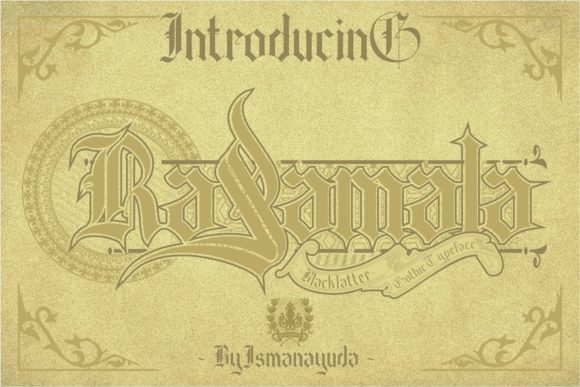
Welcome to the world of Rasamala, a captivating blackletter typeface that exudes power and intrigue. Each letterform is a visual masterpiece, boasting sharp edges, sweeping curves, and a bold, commanding presence. Rasamala is not just a font; it's an artistic expression that will make your designs stand out from the crowd.
Imagine your words leaping off the screen, demanding attention with their unique and striking appearance. Rasamala's assertive personality will transform your projects, whether they be logos, posters, album covers, or even TV displays. Its gothic undertones add a touch of mystery and elegance, making it perfect for capturing the viewer's imagination.
With Rasamala, you have the power to convey a message that resonates with your audience. Its distinct touch will leave a lasting impression, whether you're crafting a bold statement or evoking a sense of intrigue. This font is a versatile chameleon, adapting seamlessly to various design styles, from retro and grunge to modern and contemporary.
Using Rasamala is more than just choosing a font; it's an act of self-expression. Unleash your creativity and let your words take center stage. Rasamala is the perfect ally for designers, artists, and anyone who wants to make a statement with their typography. Let your designs scream confidence with Rasamala—the ultimate font for those who dare to be different.